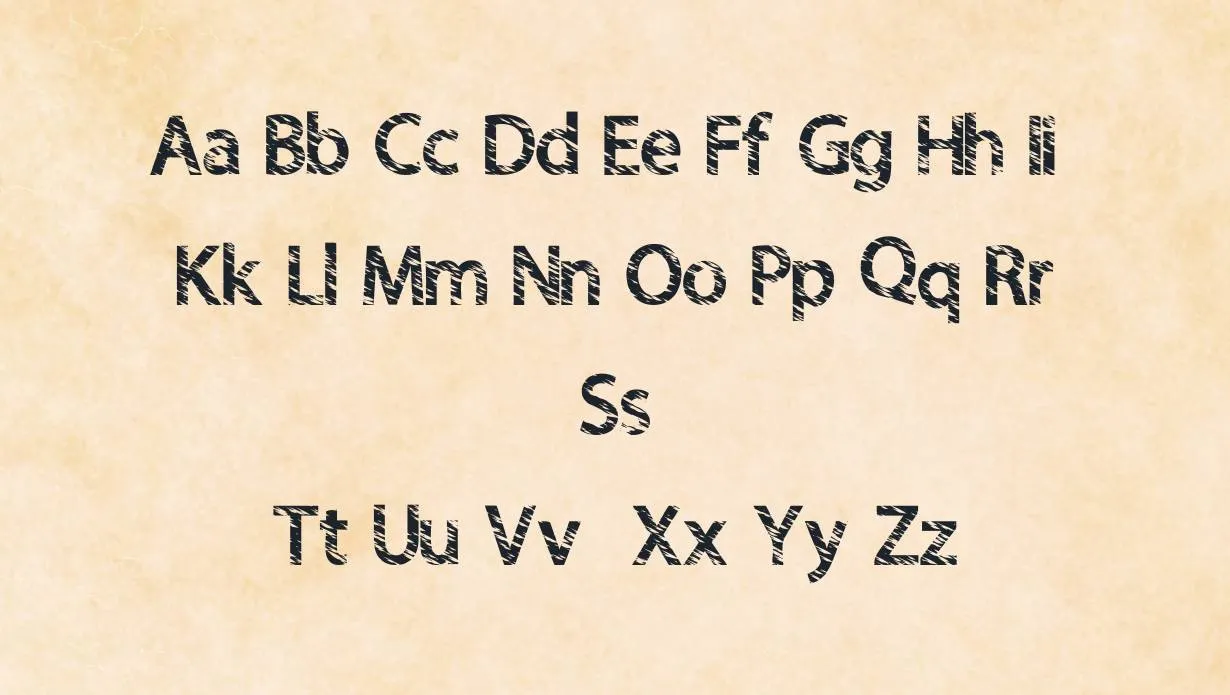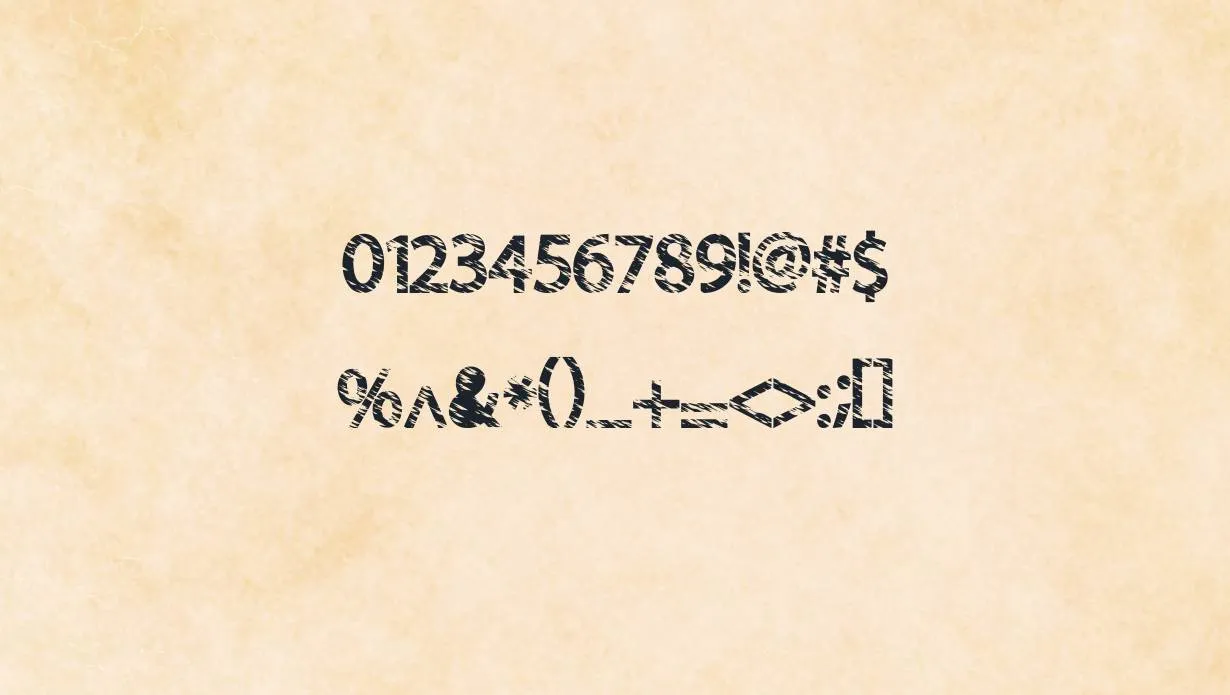
Quickcut Font is a unique typeface that has geomatic shape characters. This typeface was designed by Max Infeld and published by Xerographer Fonts. It was first originally published in 2006 and the updated version was released in 2012.
This typeface belongs to the Fancy font family. You can pair this amazing font with bantayog font to give a unique appearance to your project. This combination helps a lot to boost your project.